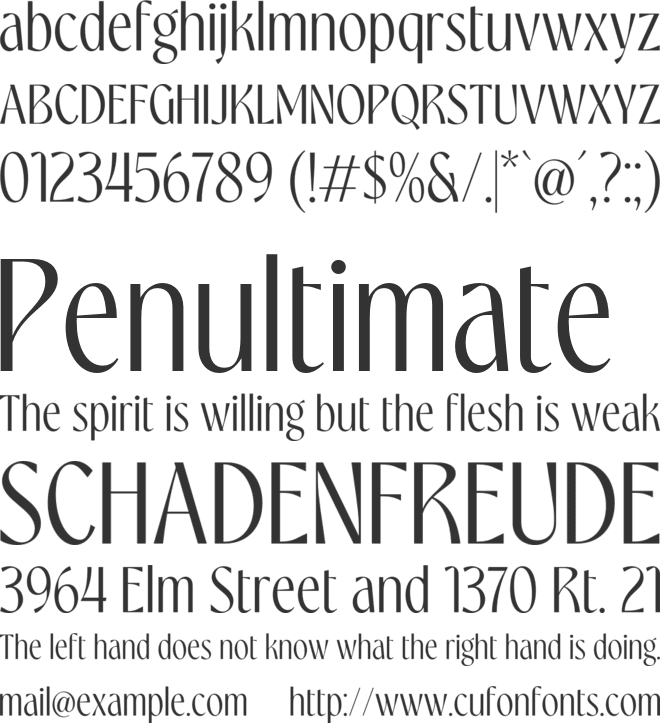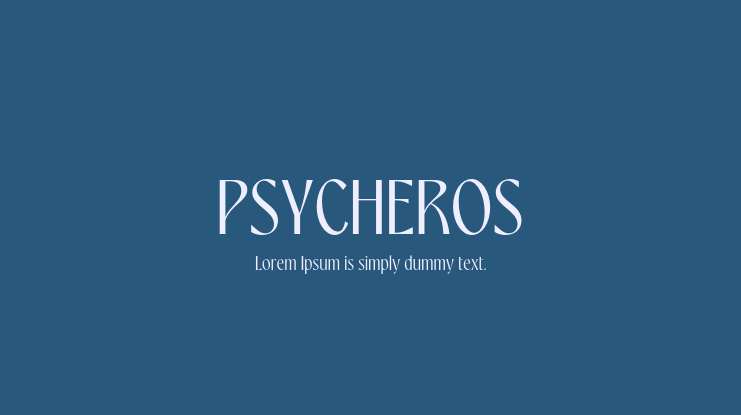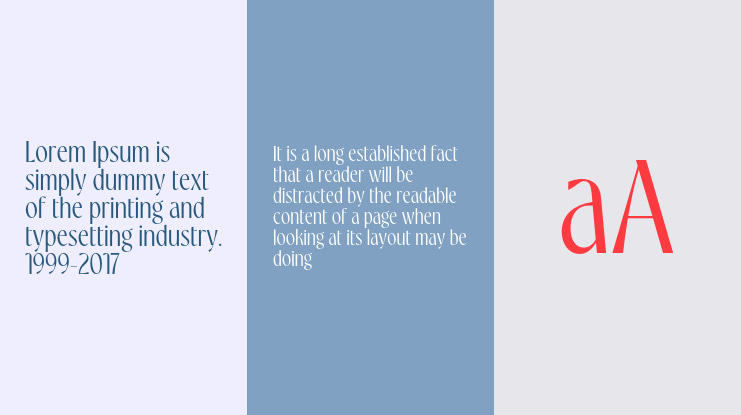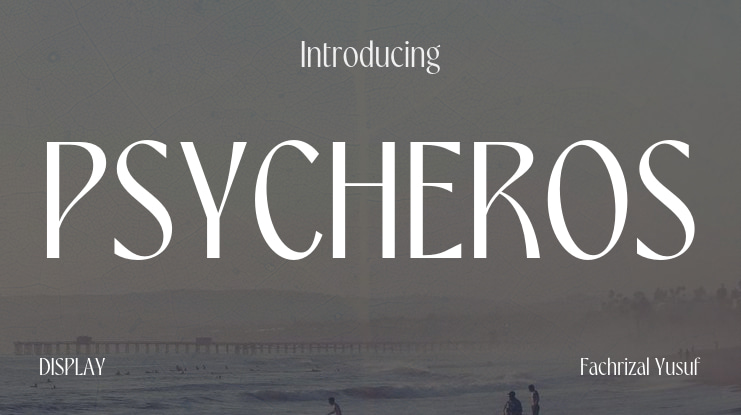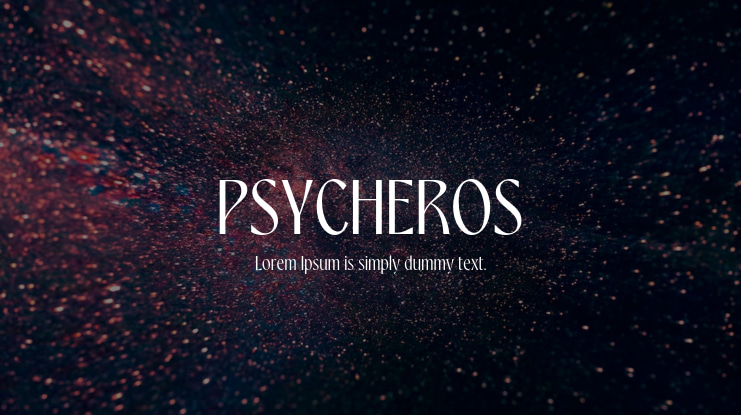
PSYCHEROS is a striking and sophisticated typeface inspired by the myth of Psyche and Eros, representing themes of love, desire, and the soul. True to its name, PSYCHEROS elegantly and boldly captures these themes with its condensed body and tall x-height, creating a dramatic impact and exuding refined luxury with a glamorous edge.
With 7 variable weights available, PSYCHEROS is highly versatile, allowing designers to explore both light, delicate styles and heavier, more pronounced ones. Its structure combines graceful curves and defined lines that convey modern sensuality, making it an excellent choice for high-end fashion branding, luxury packaging, and editorial layouts. The distinctive design of PSYCHEROS adds a sexy, luxurious, and captivating allure to any creative project, embodying a timeless style and sophistication.